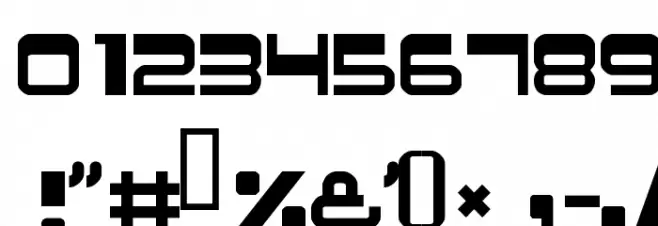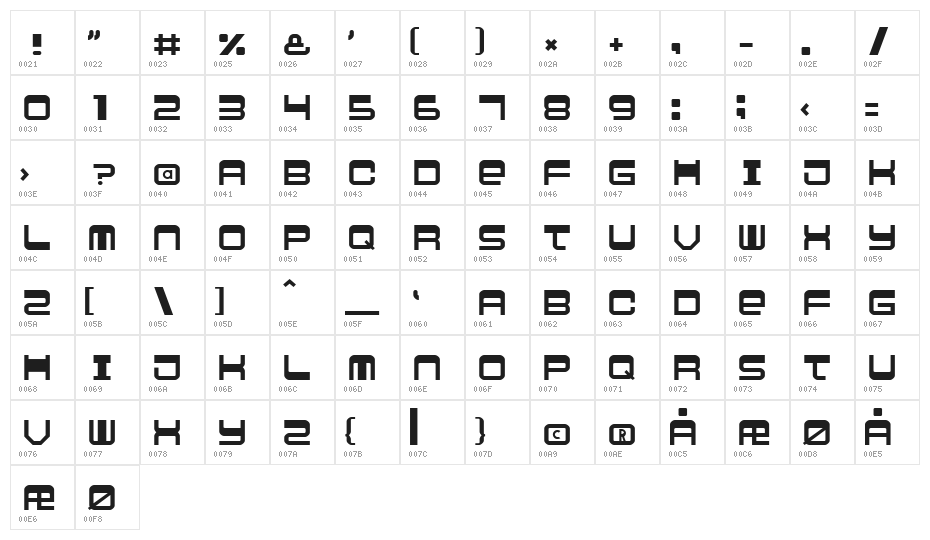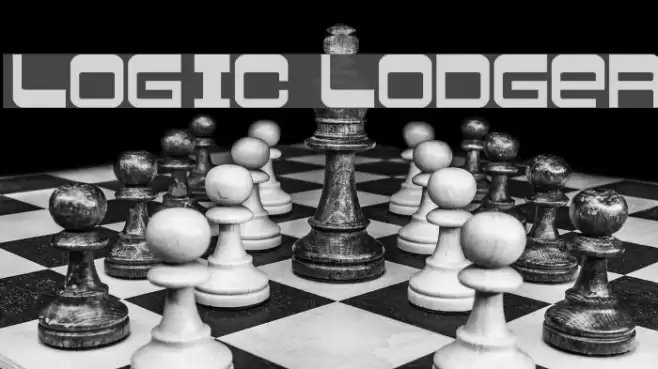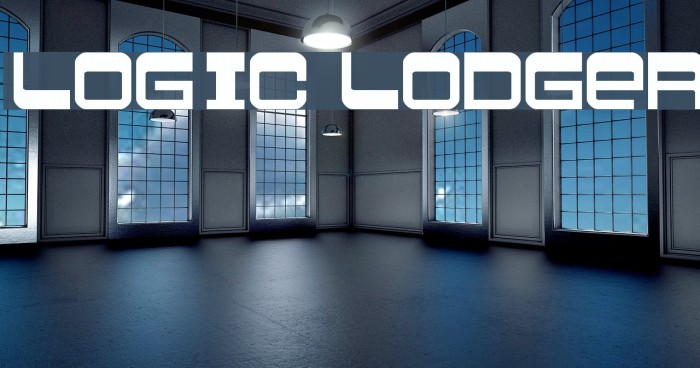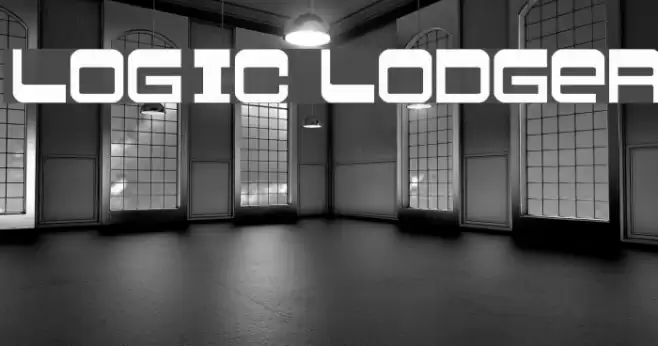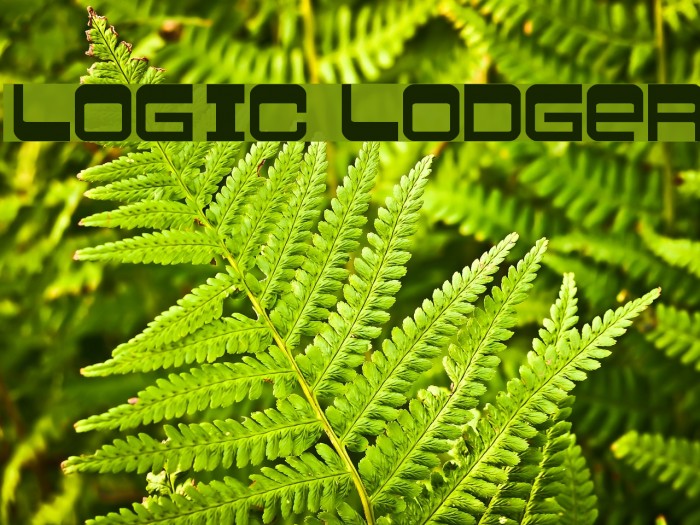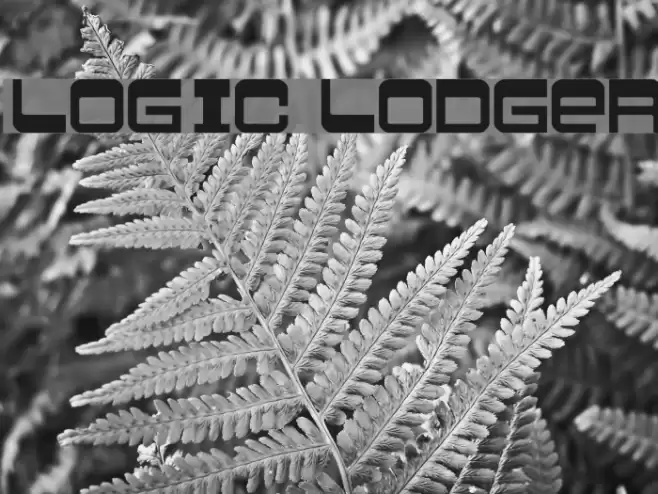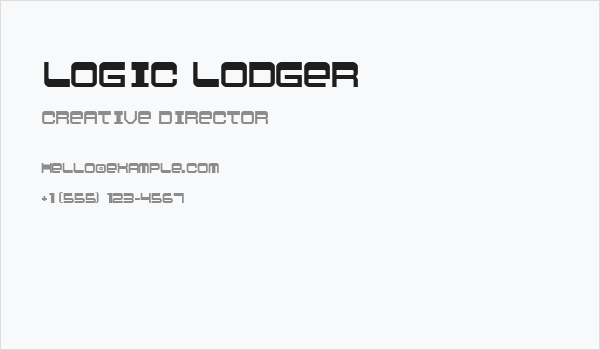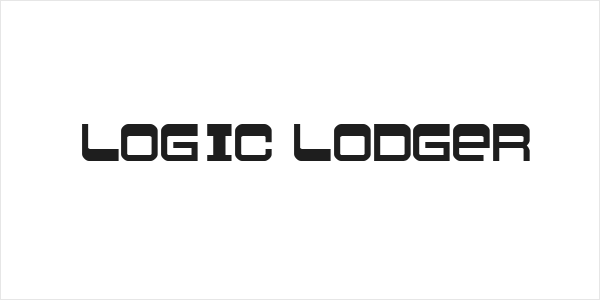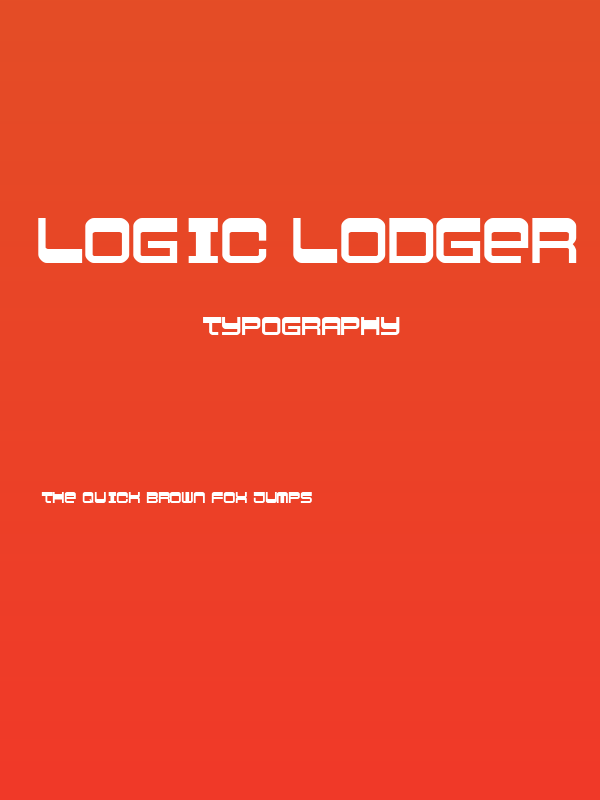
Logic lodger Font
Logic lodger Description
This font features a bold, geometric design with a futuristic aesthetic. The characters are constructed with sharp angles and straight lines, giving them a mechanical and modern appearance. The uppercase letters are uniform in height, while the lowercase letters maintain a consistent style, enhancing readability. The numbers and special characters follow the same design principles, ensuring a cohesive look across all glyphs. The font's boldness and unique style make it stand out, suitable for projects that require a strong visual impact.
| Proposed Projects | Ideal for technology branding, sci-fi movie posters, video game titles, and modern digital interfaces. |